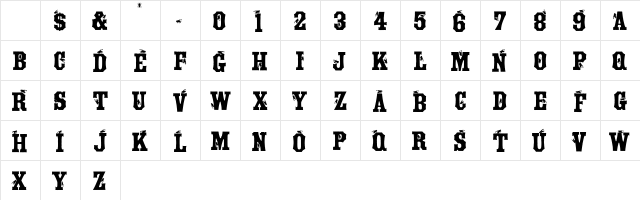
Complete Tuscan Flies Regular glyph index. Displaying only characters natively supported by Tuscan Flies Regular font.
Tuscan Flies is a composed and adaptable typeface that performs quietly and consistently across a wide range of design contexts.